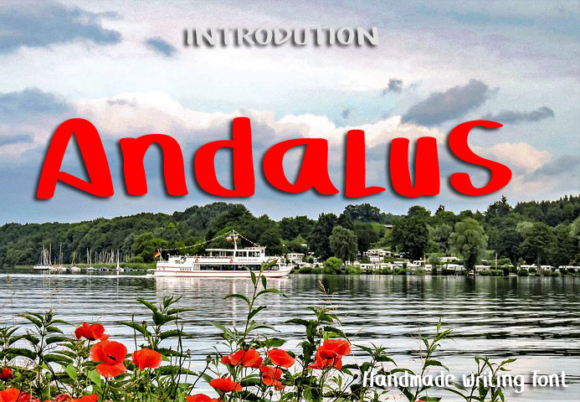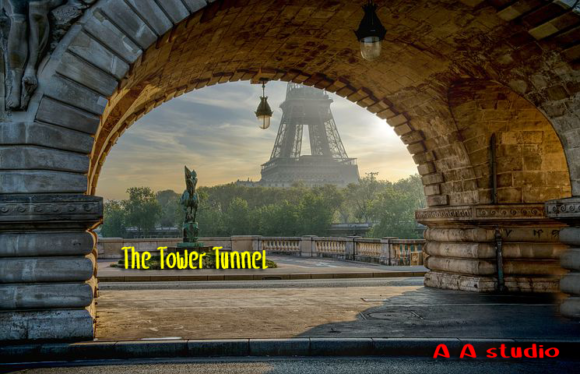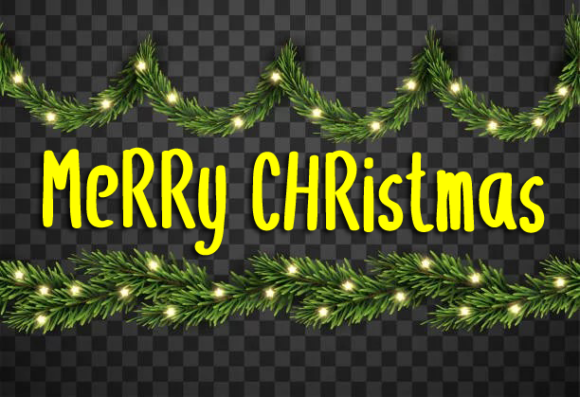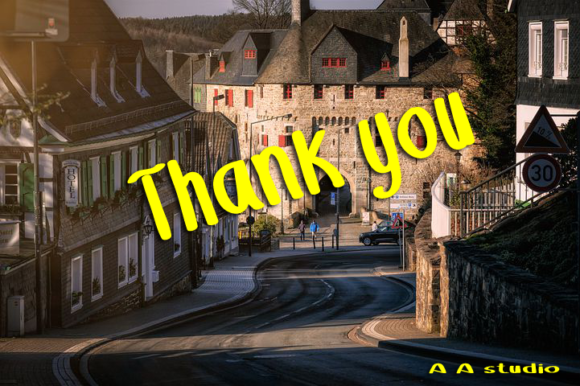
Discover the Versatility of Andalus Font: A Cool and Adaptable Display Font
Are you tired of using the same old fonts in your designs? Look no further than the Andalus Font, a cool, adaptable, and neat display font that’s perfect for adding a touch of uniqueness to your projects. With its natural and distinctive style, Andalus Font is incredibly fitting for a wide range of designs, making it a versatile addition to any designer’s toolkit. The only limit is your imagination!
What Makes Andalus Font So Special?
Andalus Font boasts a one-of-a-kind design that’s both visually striking and highly adaptable. Its natural style gives it an organic feel that’s perfect for designs that require a touch of elegance and sophistication. Whether you’re working on a logo, a poster, or a website, Andalus Font is sure to make your design stand out from the crowd.
One of the key benefits of Andalus Font is its incredible versatility. It can be used in a wide range of designs, from modern and edgy to classic and elegant. Whether you’re a designer, a craftsperson, or simply someone who loves to create, Andalus Font is the perfect choice for anyone looking to add a little something extra to their projects.
Key Features of Andalus Font
- Cool and Adaptable: Andalus Font is a highly versatile font that’s perfect for a wide range of designs.
- Neat Display Font: With its clean and elegant design, Andalus Font is perfect for headlines, titles, and other display text.
- Natural and Unique Style: Andalus Font boasts a distinctive style that’s both visually striking and highly adaptable.
- Incredibly Fitting: Andalus Font is perfect for a wide range of designs, from modern and edgy to classic and elegant.
How to Use Andalus Font in Your Designs
Andalus Font is incredibly easy to use, making it perfect for designers of all skill levels. Here are a few tips for incorporating Andalus Font into your designs:
- Use it as a Headline Font: Andalus Font is perfect for headlines and titles, adding a touch of elegance and sophistication to your designs.
- Pair it with Other Fonts: Andalus Font pairs perfectly with a wide range of other fonts, making it easy to create visually striking designs.
- Experiment with Different Colors: Andalus Font looks great in a wide range of colors, so don’t be afraid to experiment and find the perfect hue for your design.
Why Designers and Crafters Love Andalus Font
Andalus Font has quickly become a favorite among designers and crafters, and for good reason. Here are just a few reasons why:
- Unique and Eye-Catching: Andalus Font is a true standout, adding a touch of elegance and sophistication to any design.
- Highly Versatile: Andalus Font can be used in a wide range of designs, making it a valuable addition to any designer’s toolkit.
- Easy to Use: Andalus Font is incredibly easy to use, making it perfect for designers of all skill levels.
In conclusion, Andalus Font is a cool, adaptable, and neat display font that’s perfect for adding a touch of uniqueness to your designs. With its natural and distinctive style, Andalus Font is incredibly fitting for a wide range of designs, making it a versatile addition to any designer’s toolkit. Whether you’re a designer, a craftsperson, or simply someone who loves to create, Andalus Font is the perfect choice for anyone looking to add a little something extra to their projects. So why wait? Download Andalus Font today and start creating!